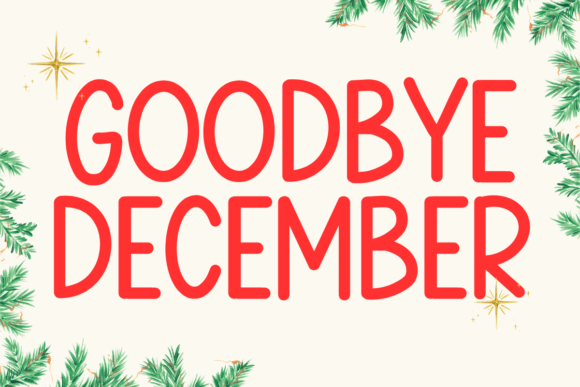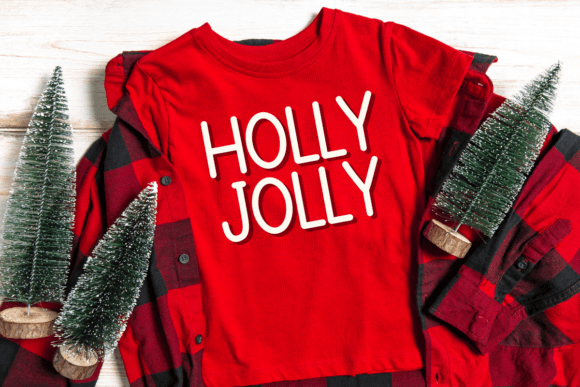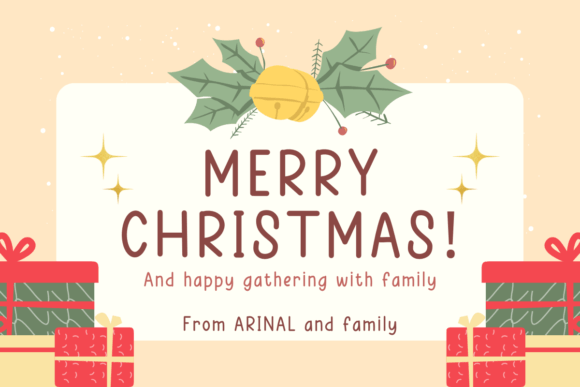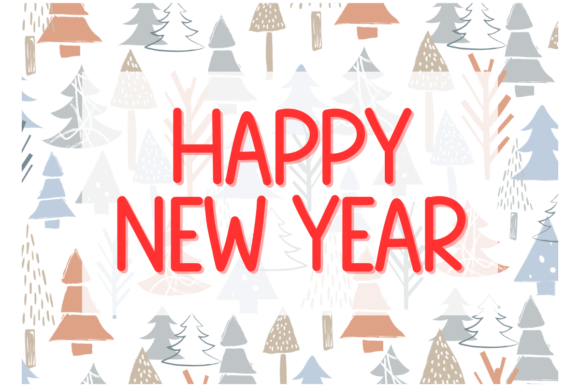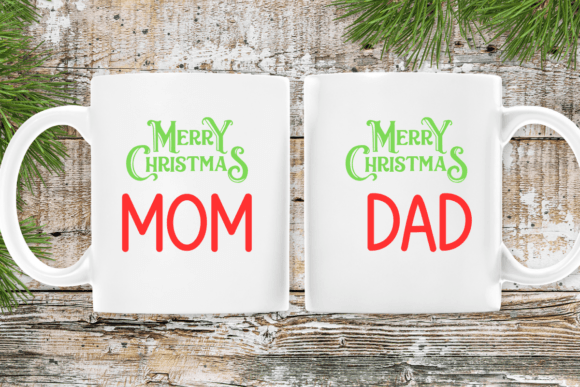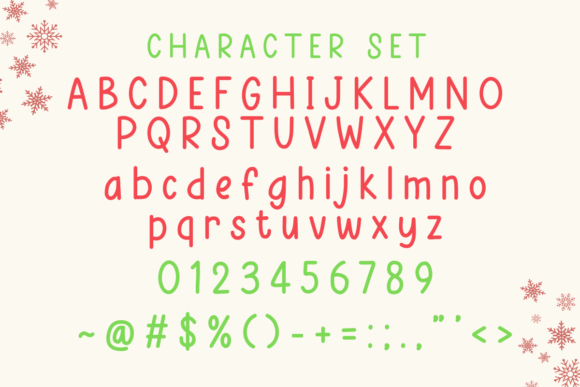
Introduction to Merry Holly Font
Have you ever stumbled upon a design element that instantly elevates your creative project from good to great? For many designers, this moment of serendipity is what makes their job so rewarding. For me, that moment came when I discovered the Merry Holly Font – a modern and minimalist masterpiece that has become my go-to choice for any project requiring a touch of feminine flair.
This beautiful font is more than just a design resource; it’s a high-quality tool that can take your branding, logos, and titles to the next level. With its transparent background and free download availability, it’s easy to see why Merry Holly Font has become a favorite among designers. Whether you’re working on a photography project, creating a new logo, or simply looking for a stylish font to add some personality to your design, Merry Holly Font is an excellent choice.
Key Features of Merry Holly Font
- High-quality design perfect for a creative project, with a free download available for designers and artists.
- Includes a transparent background, allowing for easy integration with various design elements.
- Features a unique and festive design, ideal for holiday-themed projects, such as Christmas cards, gift tags, and more.
- Designed to be a versatile design resource, suitable for a variety of creative projects, from graphic design to digital art.
Honest Review: Merry Holly Font
I recently stumbled upon the Merry Holly Font and was excited to see how it would perform in my next creative project. After experimenting with it, I have some thoughts to share.
- ✨ The Merry Holly Font has a beautiful, festive design that screams holiday cheer. It’s perfect for any project that needs a touch of whimsy.
- ✨ The font is a high quality download, with a clear and crisp appearance even at larger sizes.
- ✨ It’s great to see that the font includes a transparent background option, making it easy to use in a variety of design scenarios.
- ⚠️ The Merry Holly Font is not as versatile as some other fonts I’ve used. Its festive design may not be suitable for all types of projects.
Overall, I’m impressed with the Merry Holly Font. It’s a great design resource for any project that needs a touch of holiday cheer. While it may have some limitations, I think it’s a great addition to any designer’s toolkit.
To get the most out of the Merry Holly Font, try using it in a creative project where you want to add a touch of festive cheer. The font is perfect for holiday-themed designs, and its transparent background makes it easy to combine with other design elements.
The Merry Holly Font is commonly used in holiday-themed designs, such as Christmas cards, gift tags, and social media graphics. It’s also a great choice for branding and marketing materials, such as business cards and brochures.